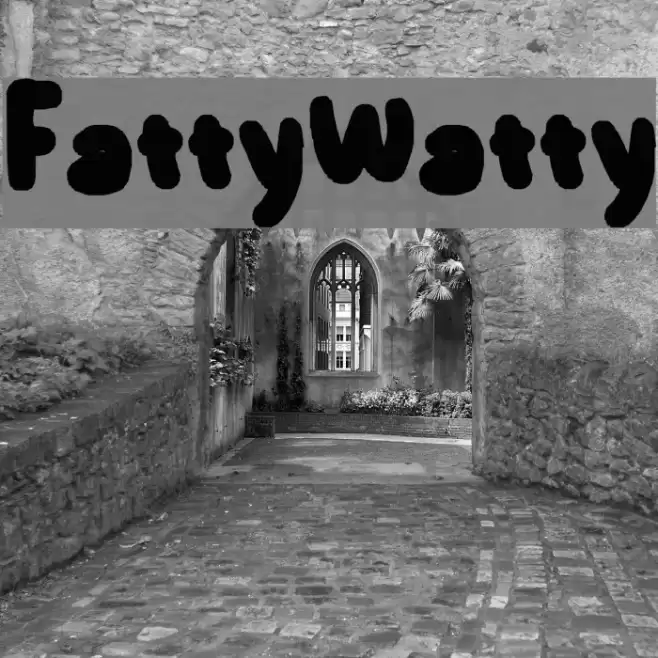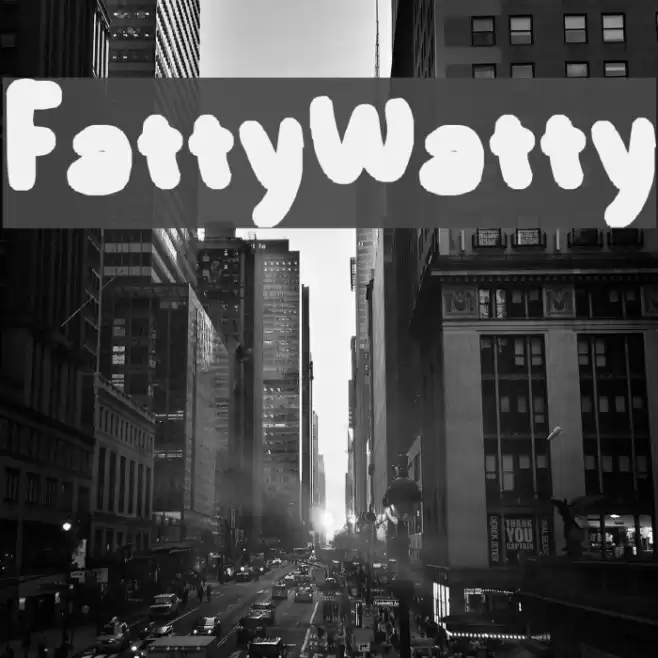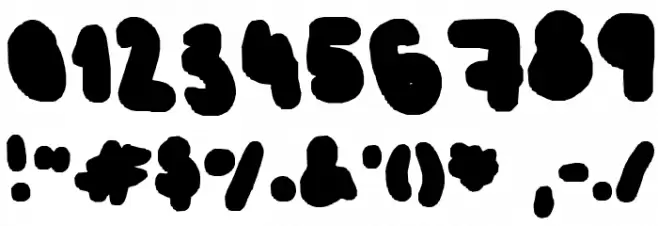
FattyWatty Font
FattyWatty Description
This playful and bold font features thick, rounded characters that exude a sense of fun and creativity. The letters are uniformly wide, with a consistent stroke weight that gives the font a cohesive look. Its bubbly appearance makes it ideal for projects that require a touch of whimsy and lightheartedness. The font includes a full set of uppercase and lowercase letters, numbers, and a variety of special characters, ensuring versatility in design applications. Its exaggerated curves and soft edges make it stand out, capturing attention with its unique style.
A bold, playful font with thick, rounded characters perfect for whimsical designs from Uncategorized fonts.
- Proposed Projects: Ideal for children's book covers, playful branding, party invitations, and creative posters.
- Width: Expanded
- Overall Style: Playful